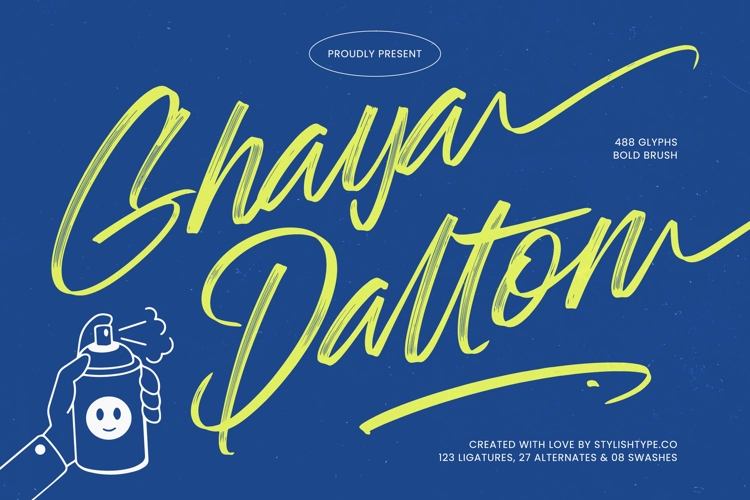
Ghaya Dalton - Bold Brush Font
Inject immediate, raw energy into your designs. Ghaya Dalton - Bold Brush Font is a powerhouse script that perfectly captures the spontaneity and raw texture of hand-painted street art. Its dramatically oversized curves and bold, expressive strokes immediately command attention, making it the ideal choice for projects demanding maximum visual impact. The design successfully marries a casual, rapid execution with a polished, highly usable typographic structure, ensuring your message is delivered with undeniable authentic flair.